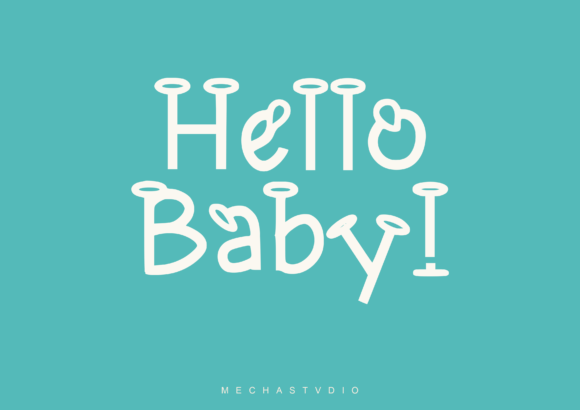
Introduction to Pottabies Font
Have you ever stared at a blank canvas, waiting for inspiration to strike? You know the feeling when the creative juices start flowing, and suddenly, your imagination runs wild with endless possibilities? For designers, moments like these are a treasure trove of creative potential.
As a designer, you’re always on the lookout for that perfect font to elevate your projects and make them truly stand out. That’s where Pottabies Font comes in – a delightful, high-quality display font designed to add a touch of whimsy and charm to your creative endeavors. Whether you’re working on a logo, branding, or a social media post, this versatile font is sure to be a valuable addition to your design library.
Key Features of Pottabies Font
- High-quality design resource suitable for creative projects, offering a unique and playful style.
- Features a clean and modern design, with a size range of 16-72 points, suitable for various typography needs.
- Perfect for designers and artists working on creative projects, such as logos, branding materials, and editorial designs.
Honest Review: Pottabies Font
I recently had the chance to work with the Pottabies Font, and I must say it’s been a game-changer for my creative project. This high-quality font is a valuable addition to any design resource, and I appreciate the transparent background that makes it easy to work with.
- ✨ Clean and modern design aesthetic that’s perfect for a variety of creative projects
- ✨ High-quality characters that render well on both digital and print materials
As with any font, there are some limitations to consider:
- ⚠️ Limited character set, which may not be suitable for projects that require a wide range of characters
- ⚠️ Not all characters may be compatible with older versions of software or operating systems
The Pottabies Font is perfect for a variety of creative projects, including social media graphics, blog posts, and marketing materials. Its playful style makes it ideal for use in children’s designs, educational materials, and fun-themed projects.